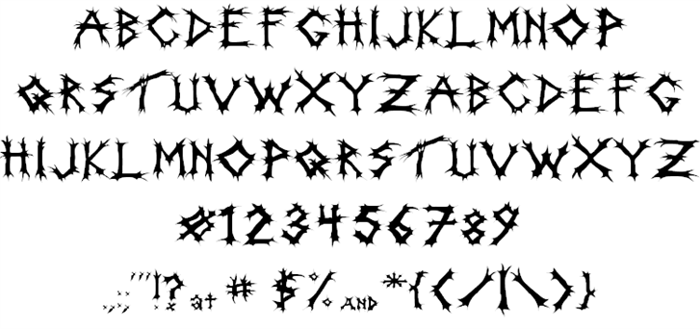
Incantation Font
This is my first publicly released typeface, and I'm hoping that what I'm writing now isn't a total waste of time. Incantation is a spikey, splintered headline font that was evolved from two things:
the kind of 'scratched-in-with-a-pencil' look that some underground bands used, that I admire, and
from the band, INCANTATION, whose logo is somewhat like this, but not really. Very loosely based on this, I guess I should say.
For now, INCANTATION is an all-caps typeface, but in the next release, I plan to have some more umlauts, diala-whatchamacall'em things and all that stuff, and a lower case set. If you are interested in other Death metal/grindcore type fonts I've made, but haven't released, mail me.